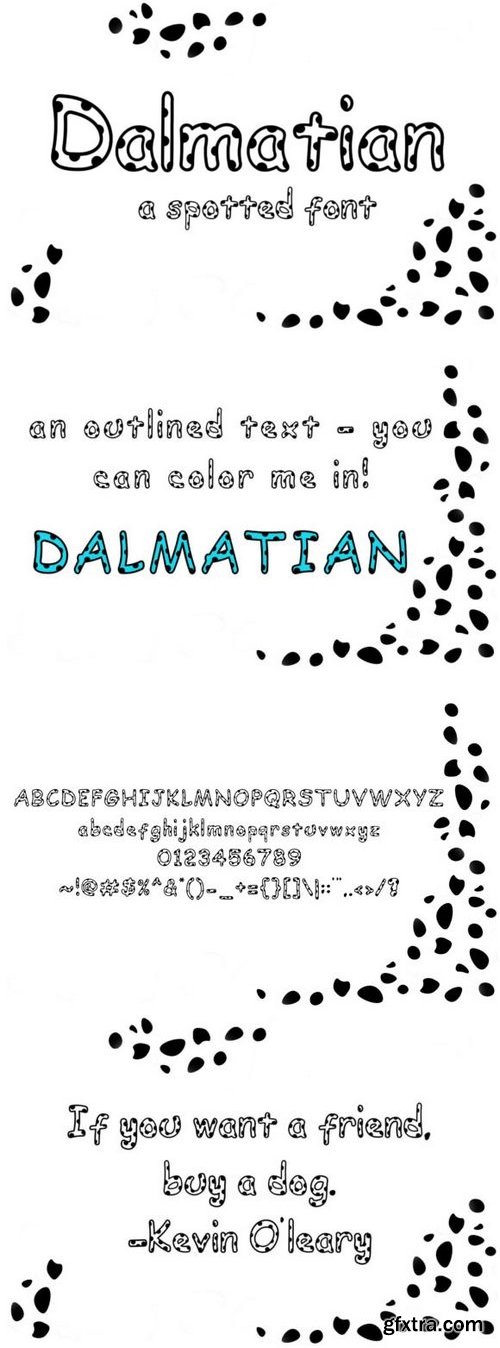
Fontbundles - Dalmatian: A Spotted Font 80505
The Dalmatian is a fun, spotted font! It’s perfect to use for kid projects. It’s an outlined font, meaning you can color these letters in. Cut your child’s name in this font with HTV and make them a personalized coloring t-shirt!